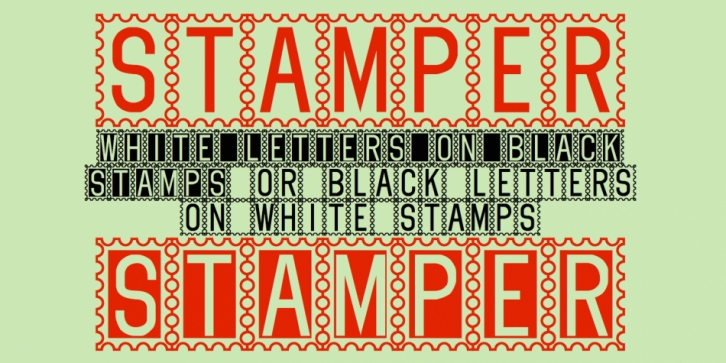
Designed by Robert Schenk, Stamper is a novelty font published by Ingrimayne Type.
In Stamper all the letters are on little stamps. The upper-case letters are have black letters on white stamps and the lower-case letters have white letters on black stamps. The character set is very limited. The letters are from the typeface Myhota, also by Ingrimayne Type.